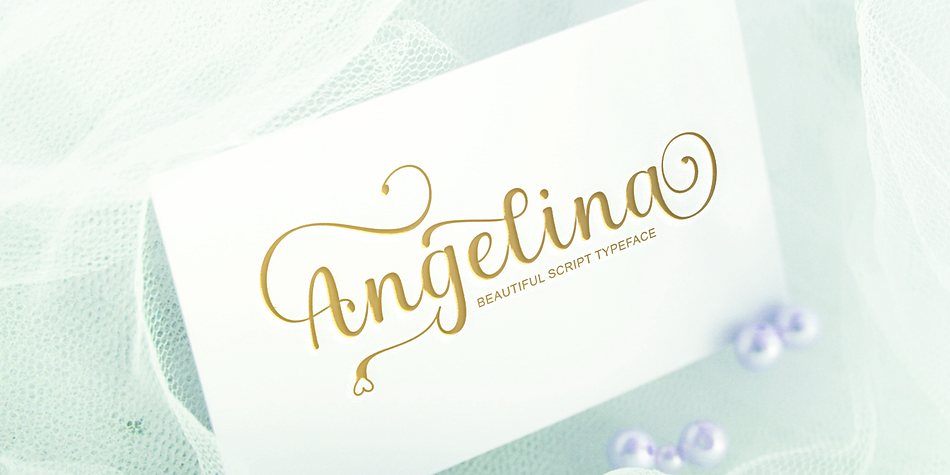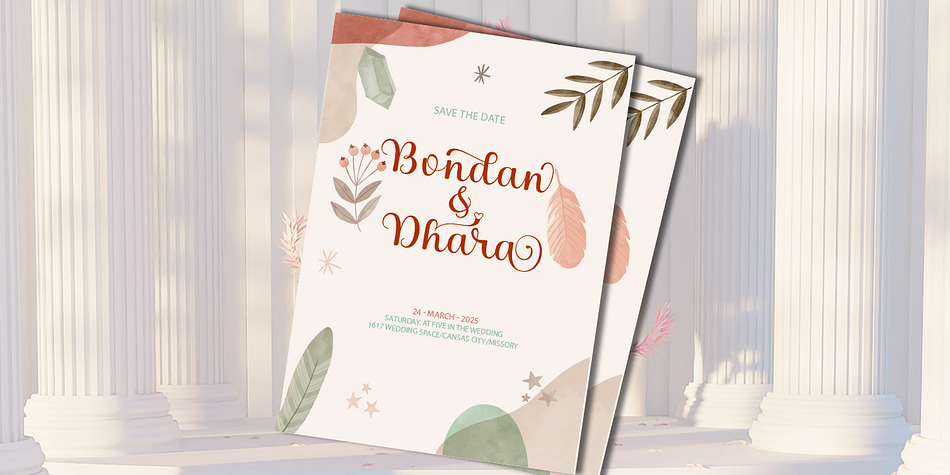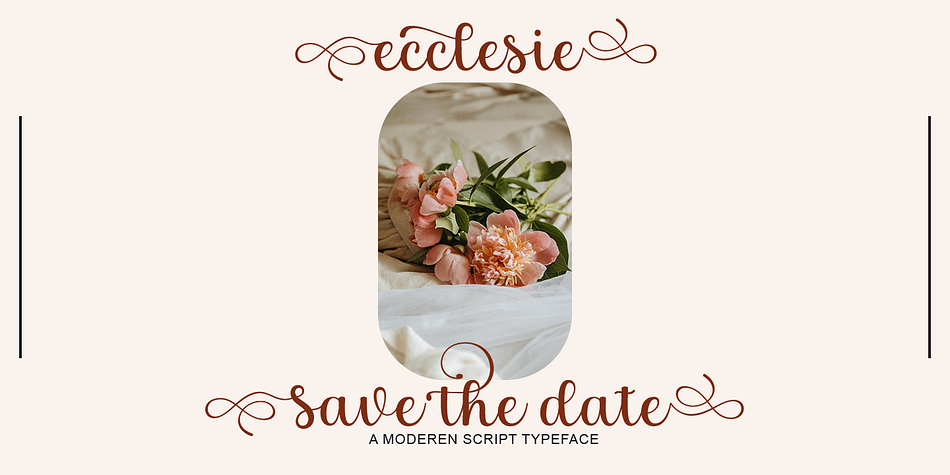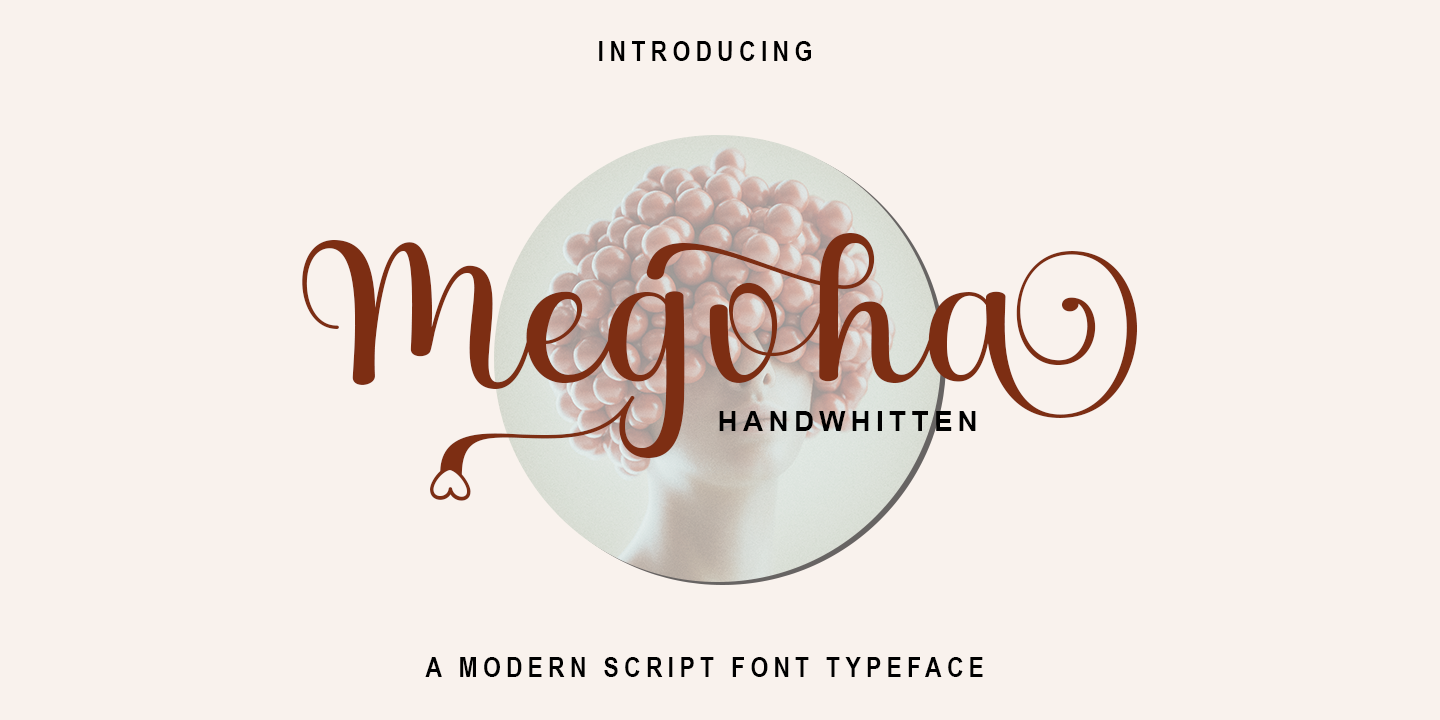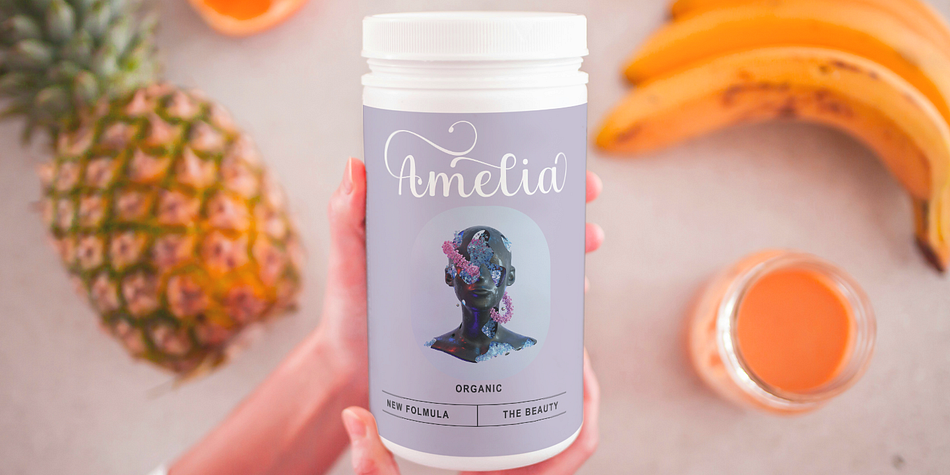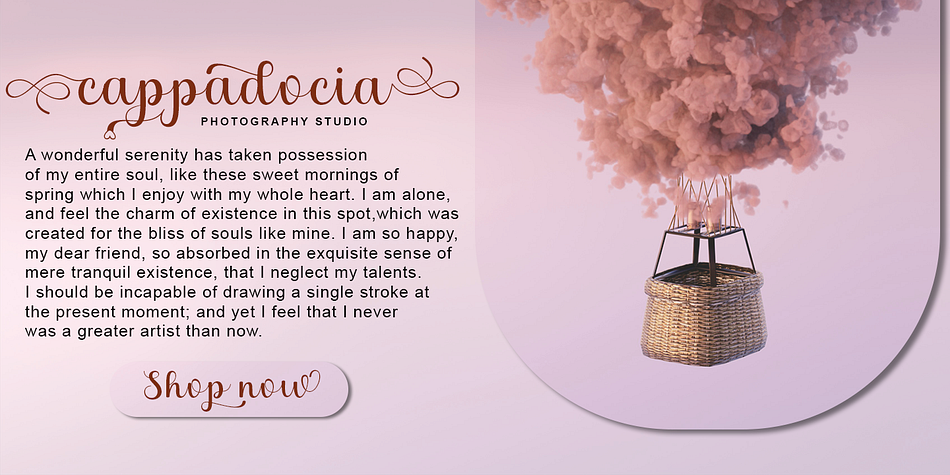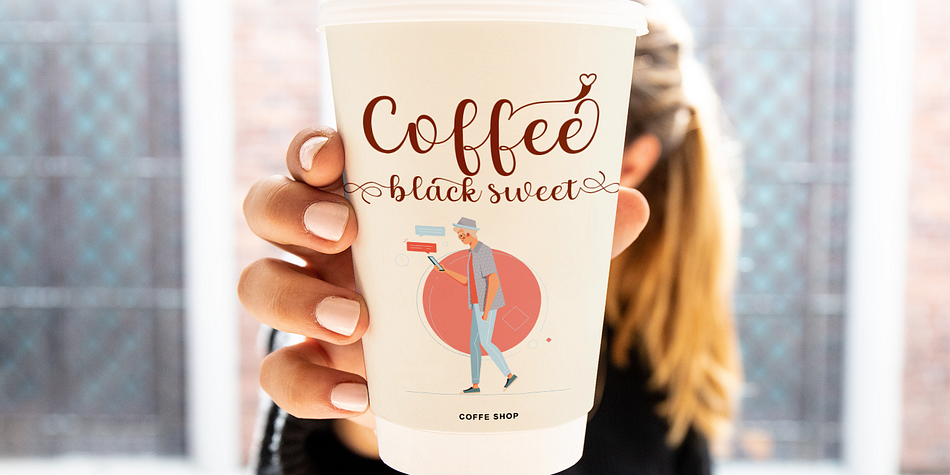
Megoha
Megoha is a script font family published by Gatype.
Megoha is an elegant and flowing script font with a modern touch. Its curved and smooth letterforms create a dynamic and classy feel, making it ideal for a wide range of design applications such as branding, invitations, posters, and social media.
Megoha is meticulously crafted with readability in mind, making it a perfect choice for designers seeking a balance between style and functionality. With its variety of ligatures and alternate characters, Megoha offers creative flexibility in composing eye-catching text.